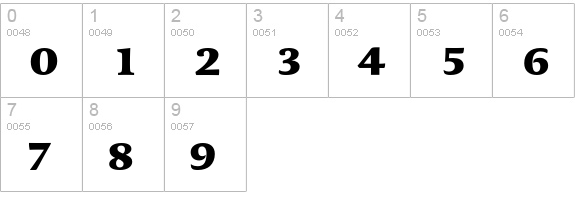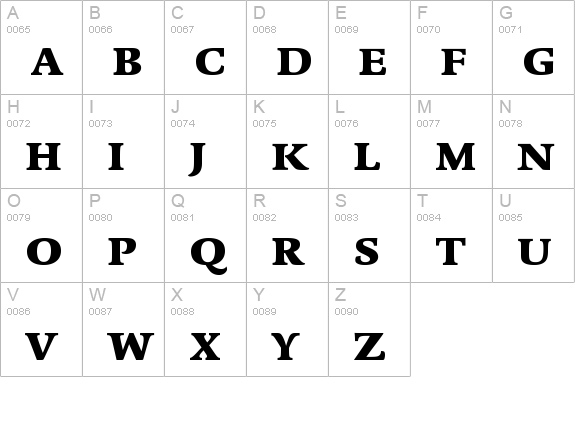
DTLDorianT-Heavy is a heavy, high-impact variant in the DTLDorianT typeface family \xE2\x80\x94 well suited to high-impact headlines, posters, and display advertising.
Introducing DTLDorianT-Heavy font, a bold and impactful typeface designed to make a statement. With its strong, thick lines and distinctive letterforms, DTLDorianT-Heavy is perfect for headlines, titles, and other attention-grabbing design projects. This versatile font exudes a sense of authority and strength, making it ideal for projects that require a commanding presence. Best of all, DTLDorianT-Heavy is available for free download at FontsMarket.com. This means you can add this powerful font to your design arsenal without breaking the bank. Whether you're working on branding, advertising, posters, or any other project that calls for a bold and eye-catching font, DTLDorianT-Heavy has got you covered. Download it today and take your designs to the next level!